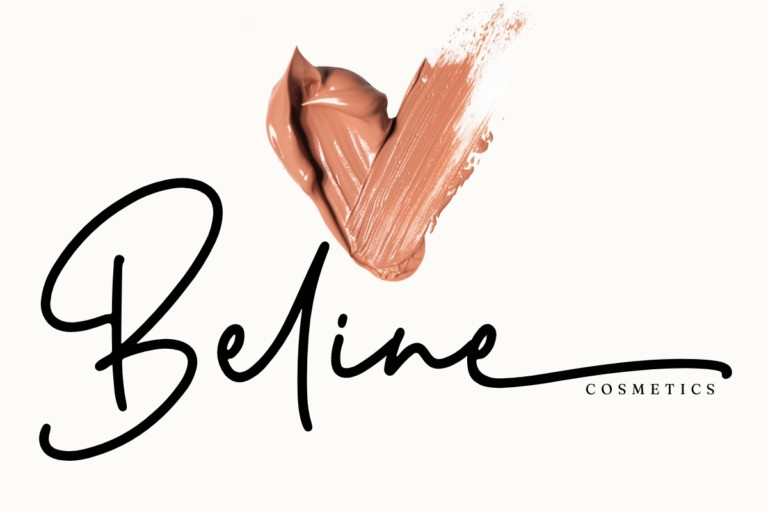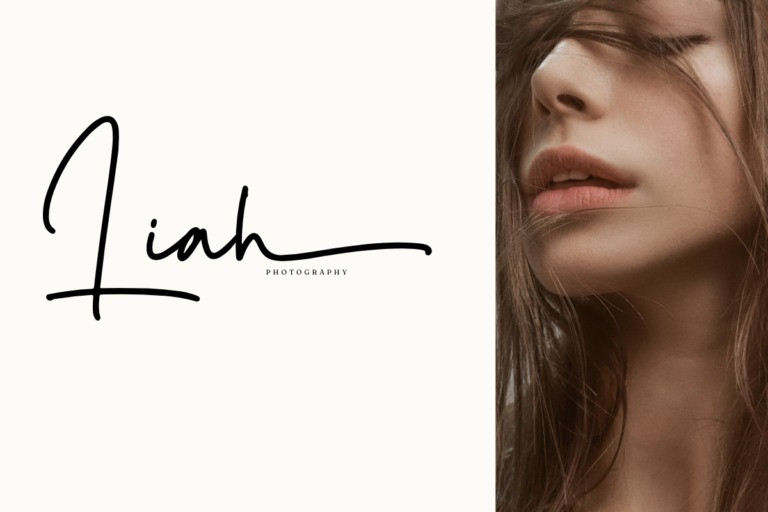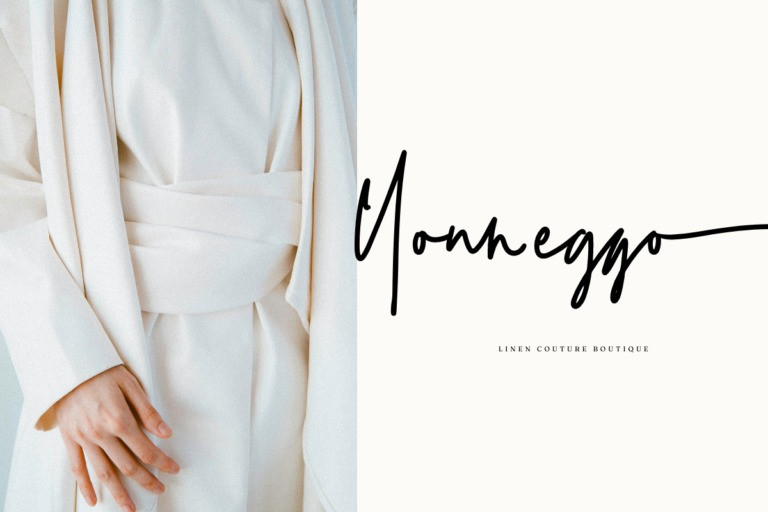
Righten Handwritten Font is a modern and awesome handwriting typeface with extraordinary charm. This will change any design idea to be beautiful and perfect! It’s perfect for logo, branding, title, social media posts, advertisements, product packaging, product designs, label, photography, watermark, special event, magazine, web designs, etc.